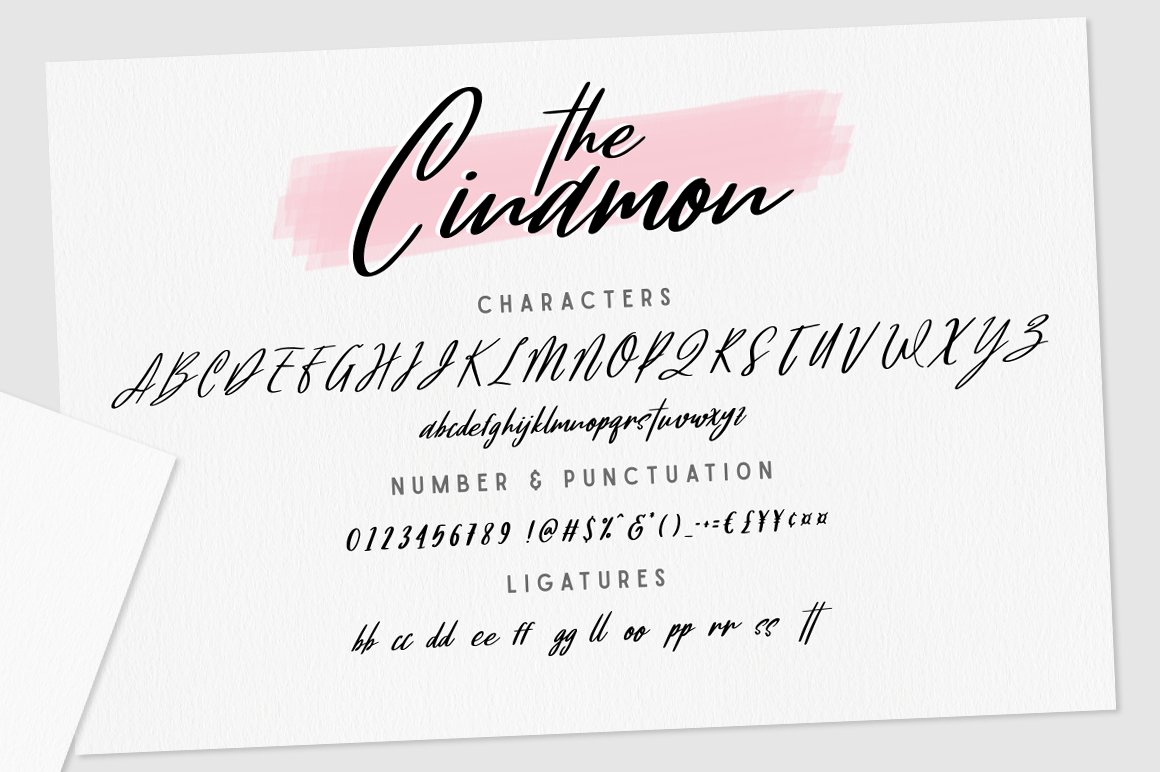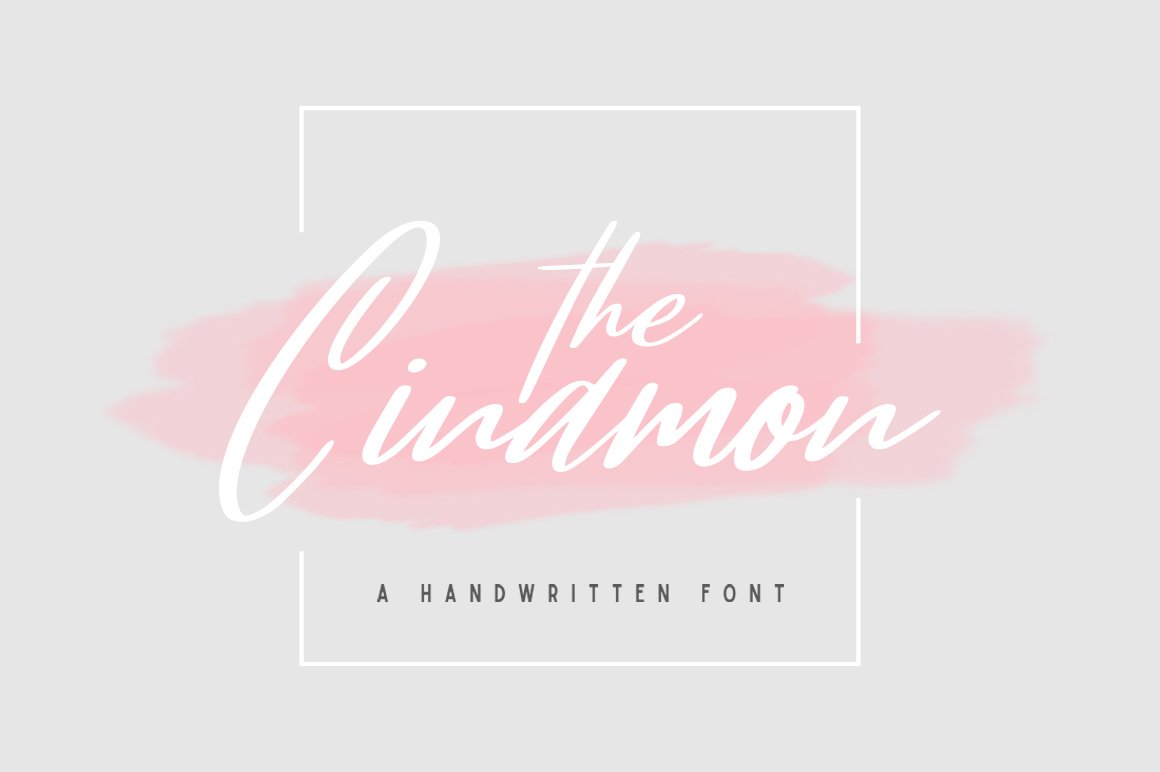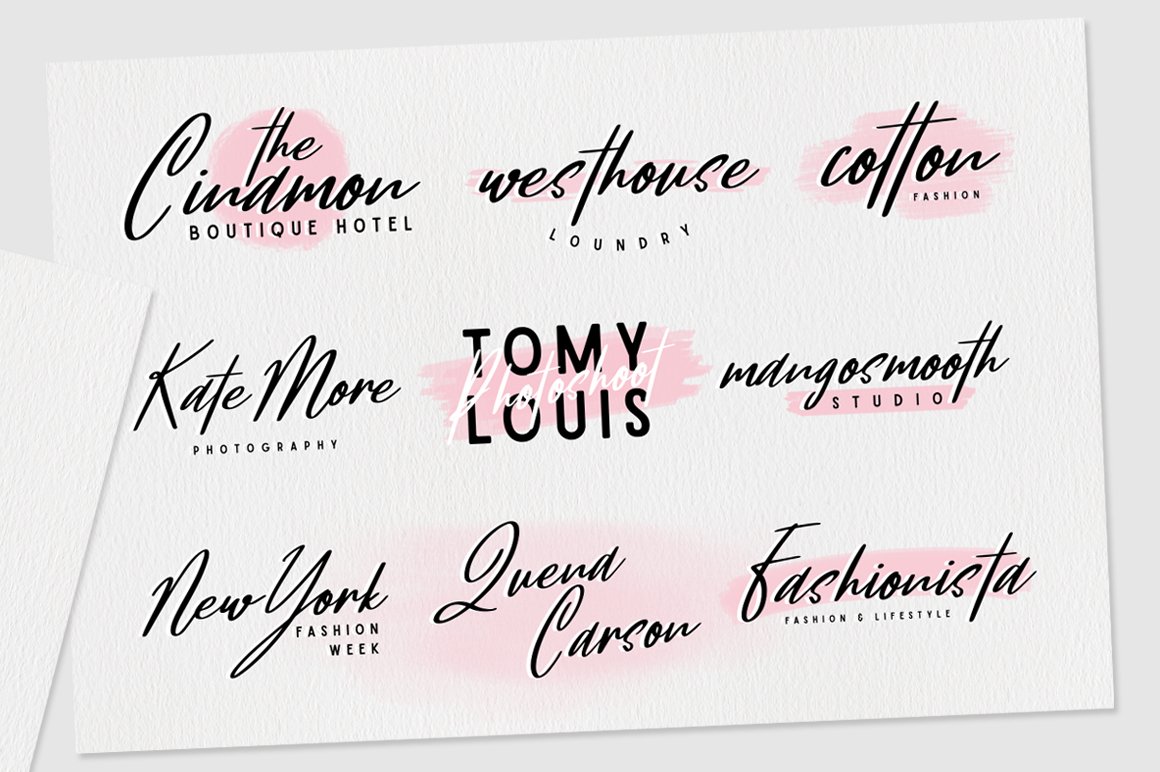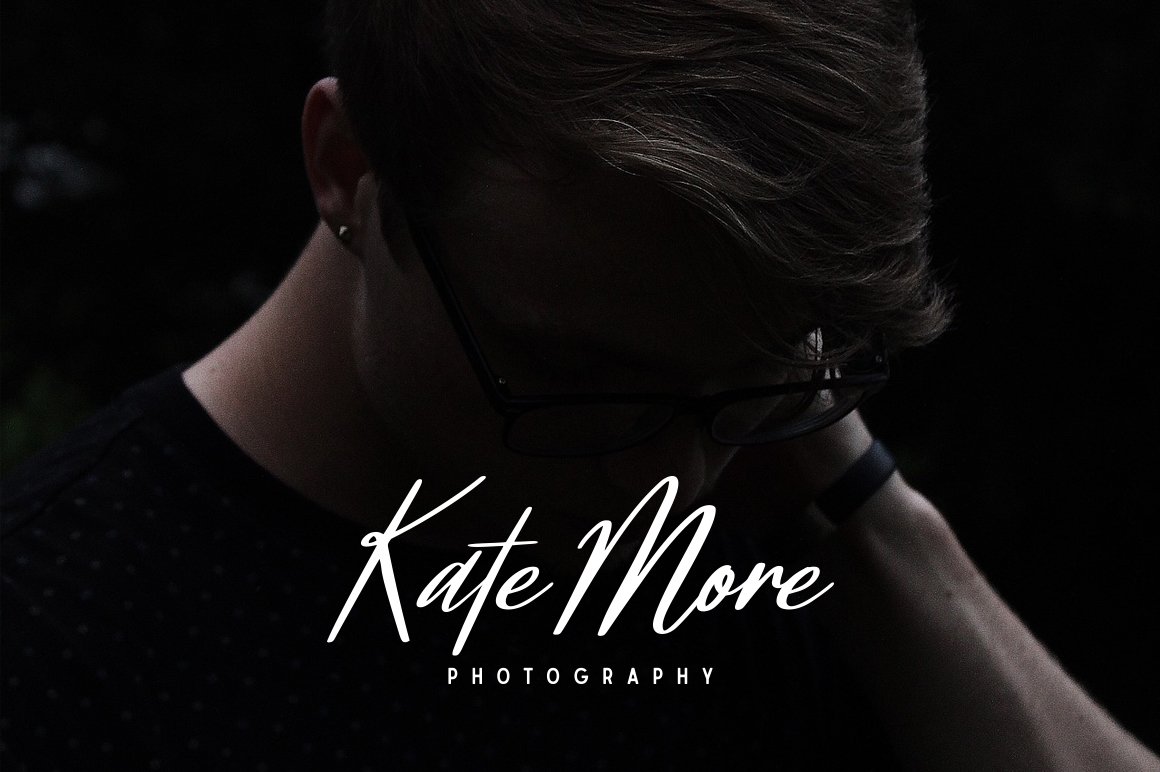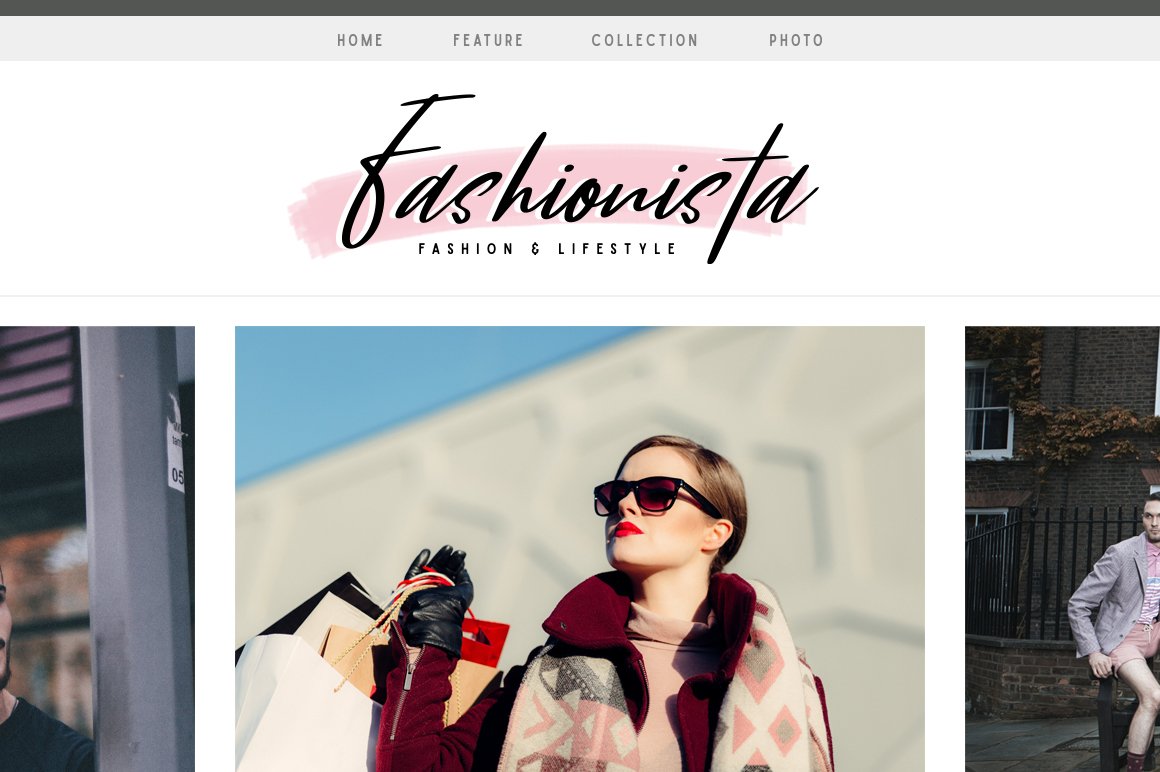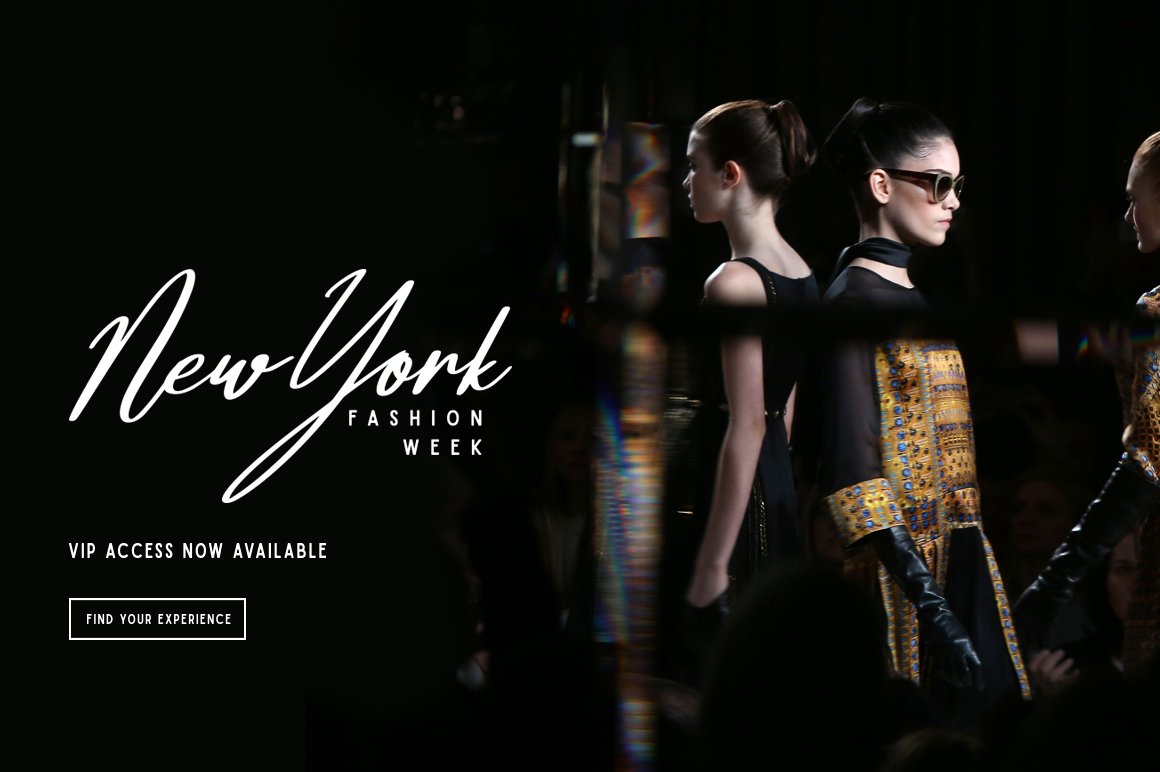
Cinamon
Hello! I just released new handwritten font called Cinamon.
Cinamon is a handwritten signature font. This font is really easy to use, and is perfect for your branding needs. with this font you can create a feminine logo easily and quickly.
Features
- Uppercase & Lowercase
- Ligatures ( OpenType Features )
- Symbols & Punctuation
- International Characters - Afrikaans, Albanian, Asu, Basque, Bemba, Bena, Chiga, Cornish, Danish, English, Filipino, French, Friulian, Galician, German, Gusii, Indonesian, Irish, Italian, Kabuverdianu, Kalenjin, Kinyarwanda, Luo, Luxembourgish, Luyia, Machame, Makhuwa-Meetto, Makonde, Malagasy, Malay, Manx, Morisyen, North Ndebele, Norwegian Bokmål, Norwegian Nynorsk, Nyankole, Oromo, Portuguese, Romansh, Rombo, Rundi, Rwa, Samburu, Sango, Sangu, Scottish Gaelic, Sena, Shambala, Shona, Soga, Somali, Spanish, Swahili, Swedish, Swiss German, Taita, Teso, Vunjo, Welsh, Zulu